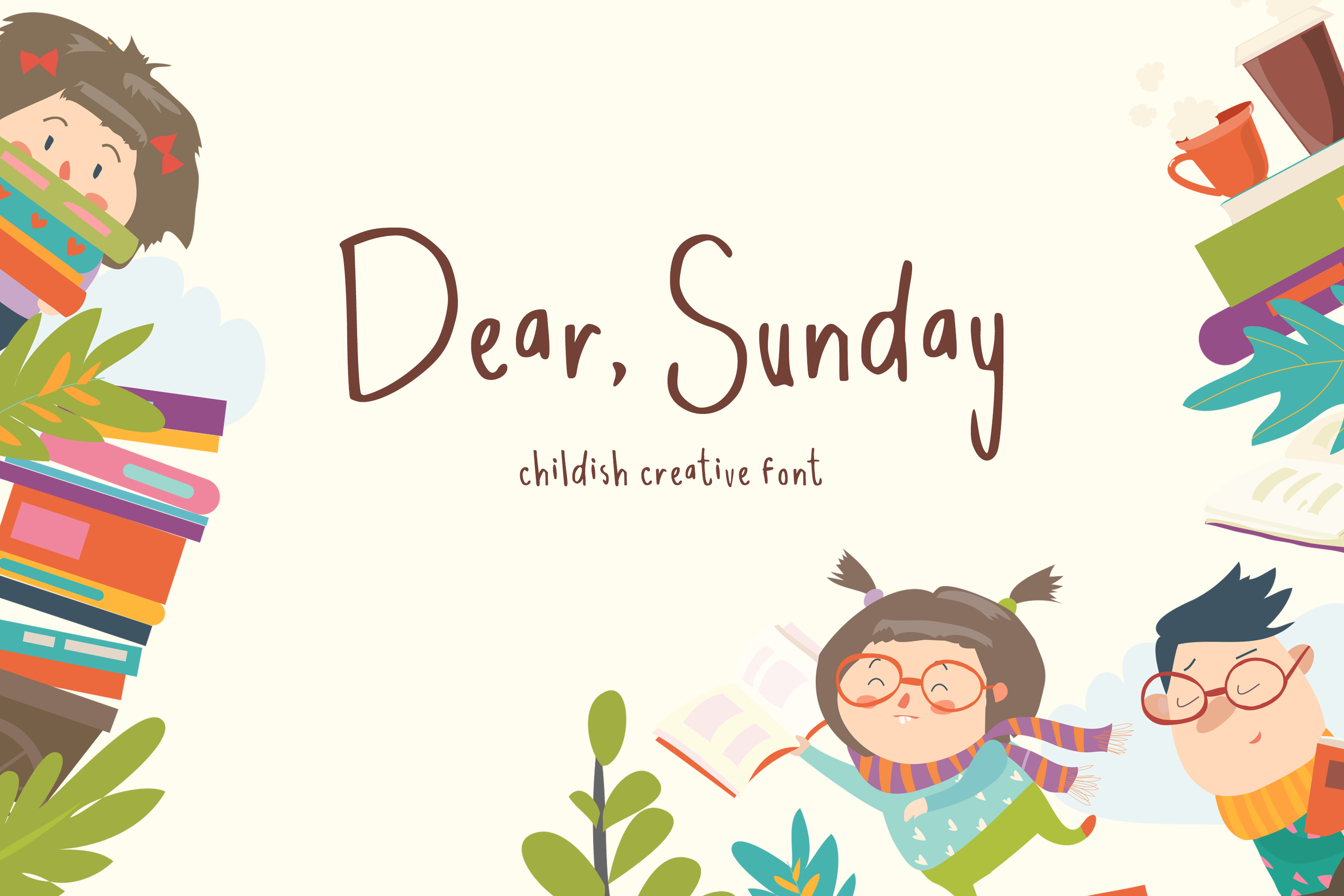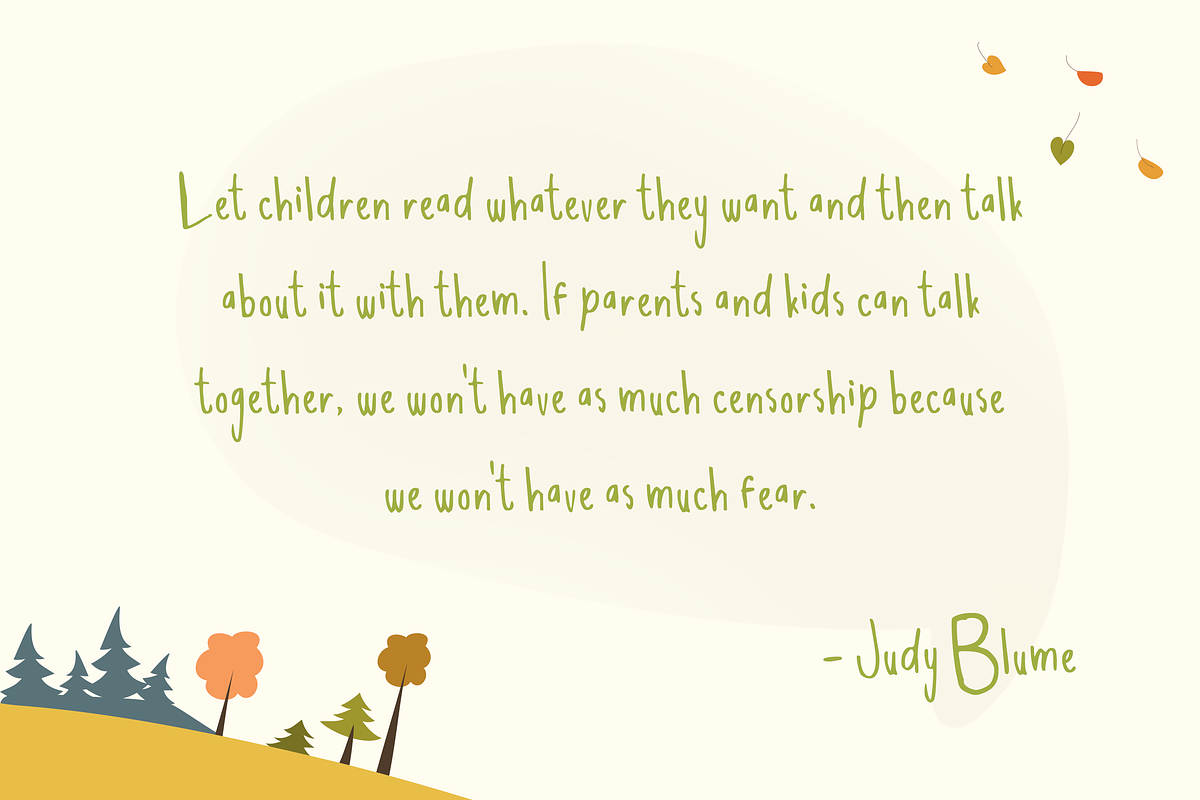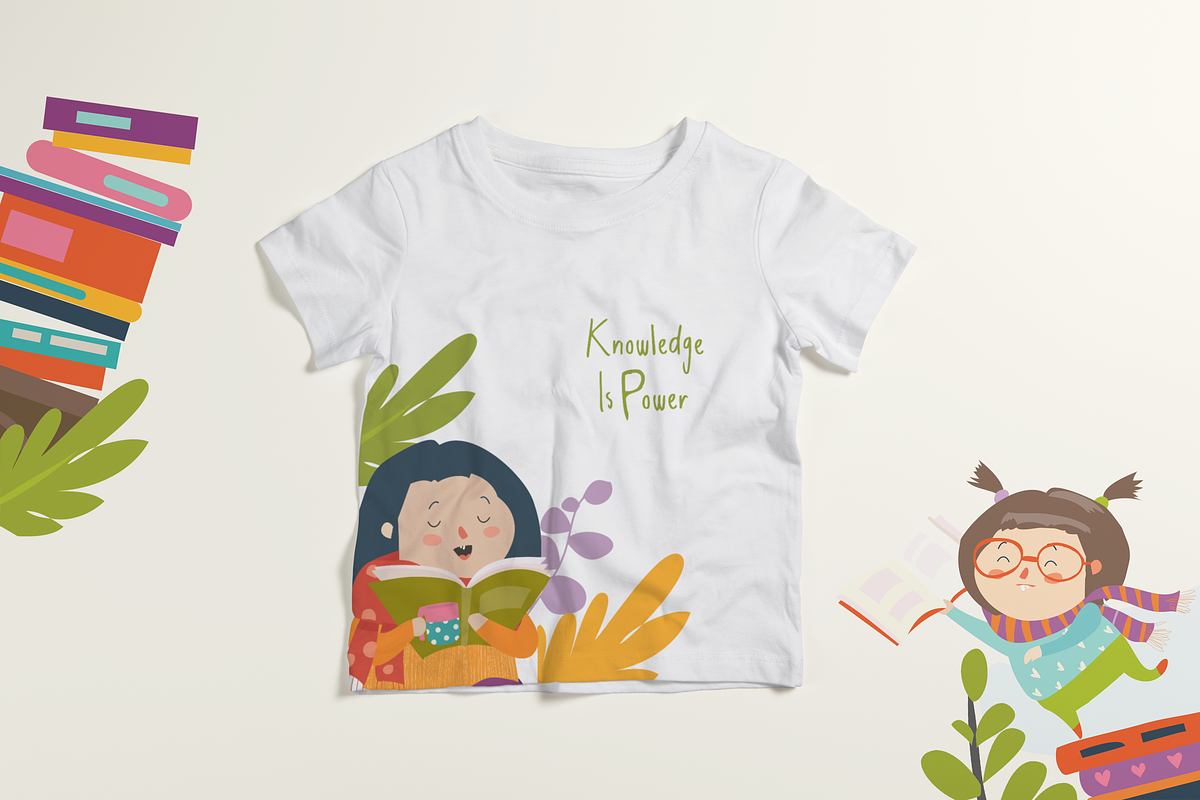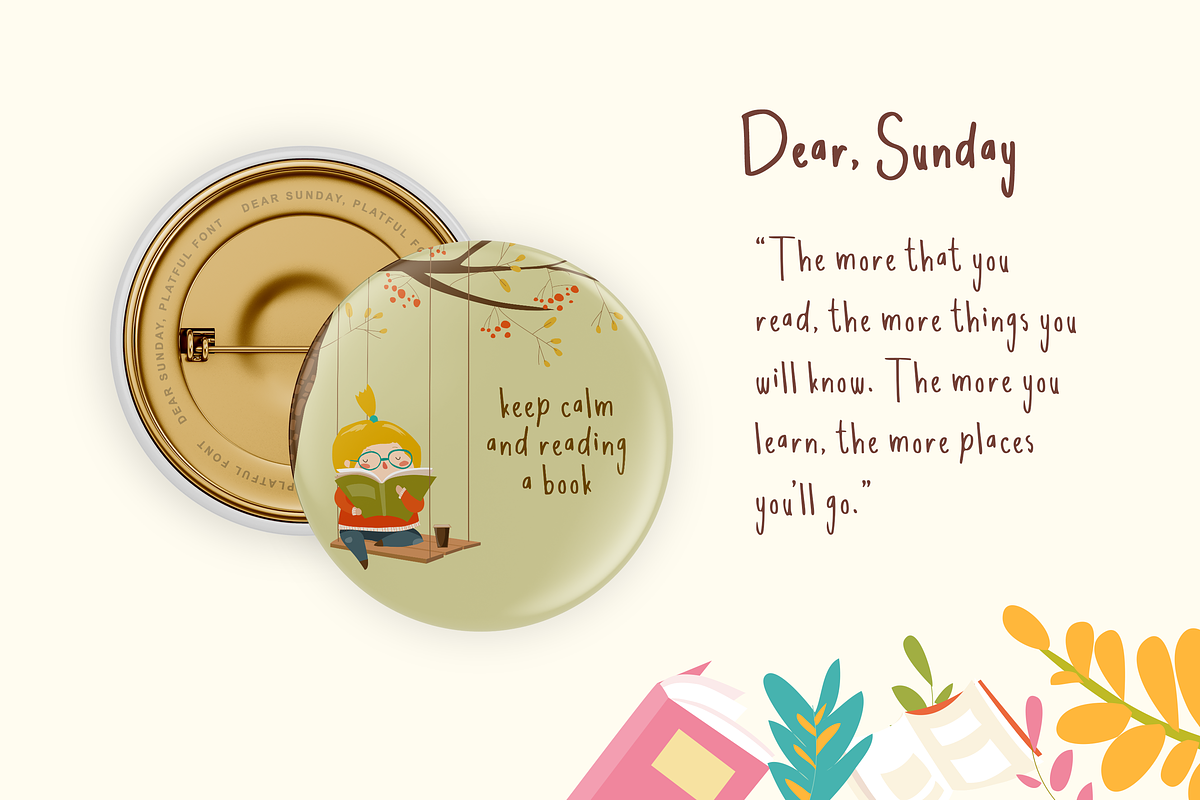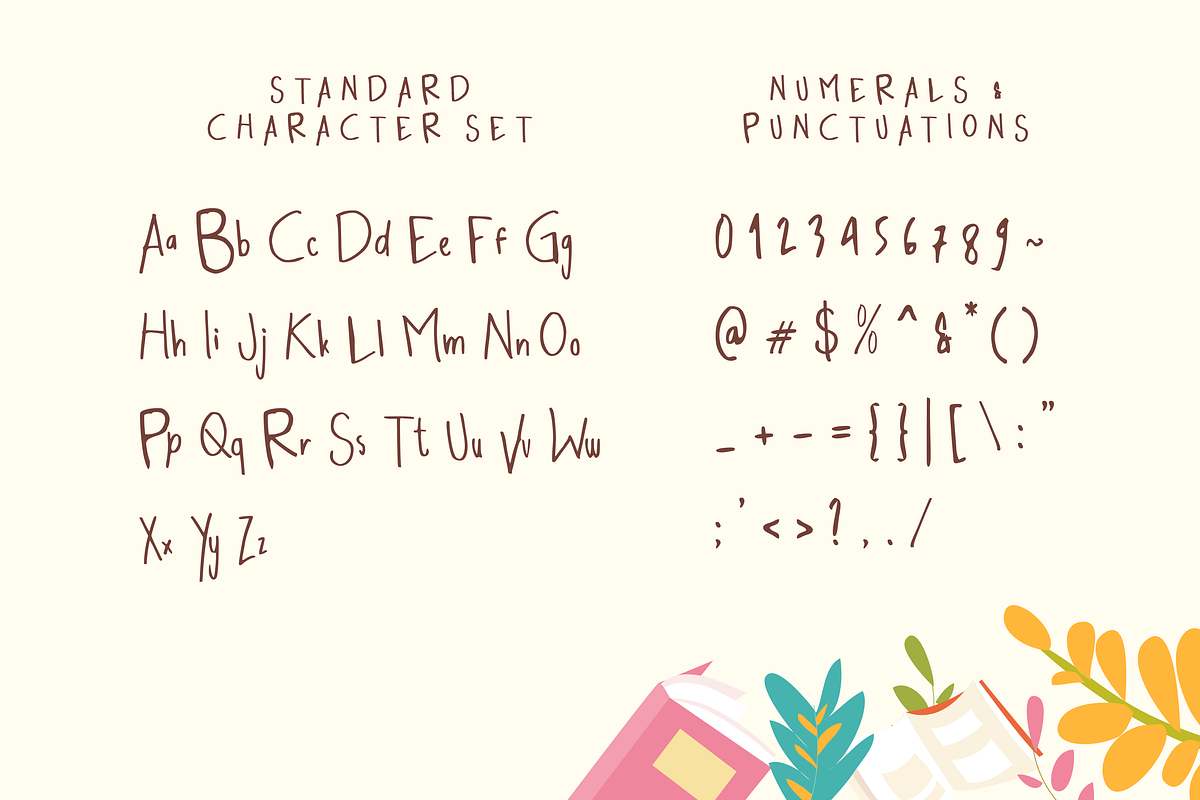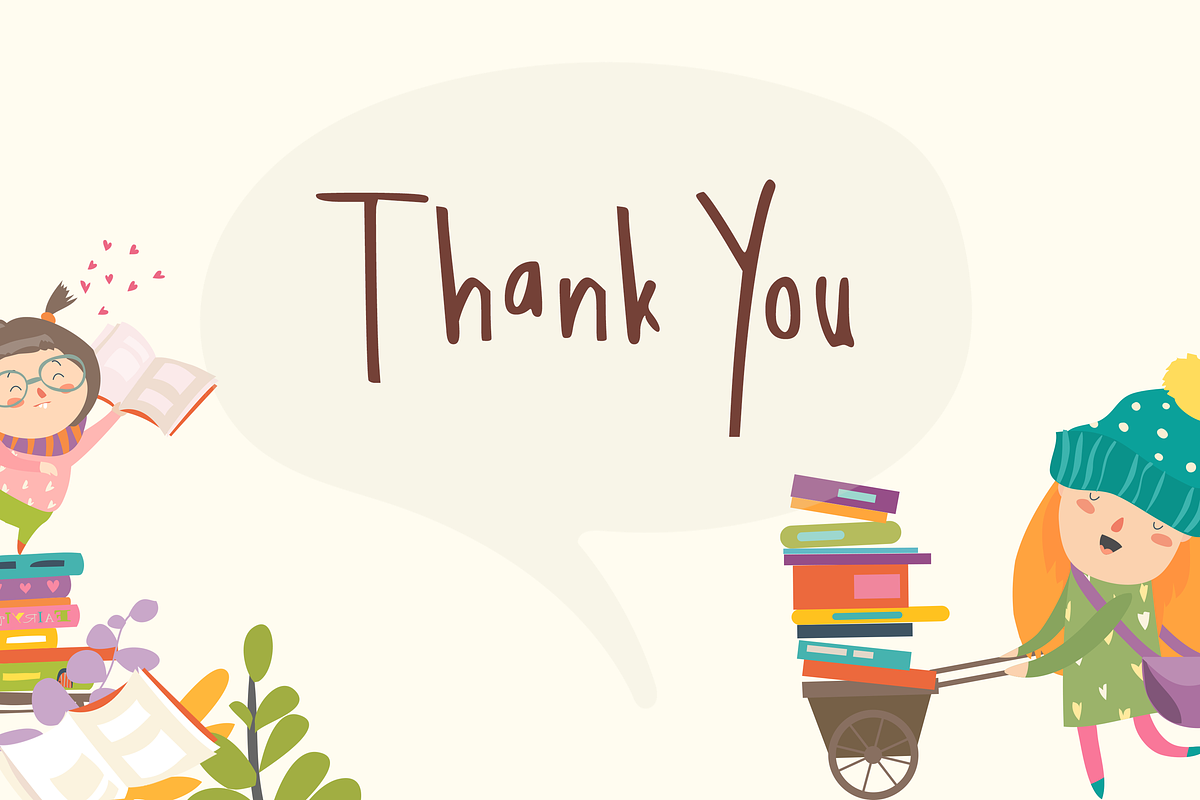
Dear Sunday Creative Font
Dear Sunday Childish Creative Display Font, is our new font and suitable for mockup or any work.
Great for Sticker, Invitation Card, Brochure, etc.